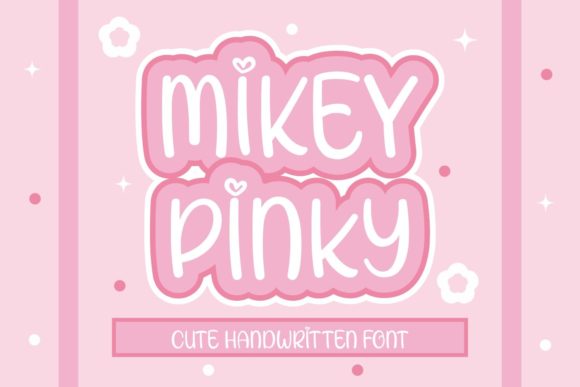
Introducing Mikey Pinky, the enchanting handwritten font that captures the essence of love and playfulness in every stroke. Specifically designed to cater to your heartfelt creations, Mikey Pinky is the perfect choice for crafting designs that evoke warmth and affection.
With its charming and whimsical personality, Mikey Pinky is the ideal font for bringing a touch of joy and lightheartedness to your designs. Its smooth curves and playful strokes will add a captivating touch to your projects, whether you're designing invitations, greeting cards, or any creation that calls for a sprinkle of happiness.
Indulge in the magic of Mikey Pinky and let its heartfelt spirit elevate your creations. Let your designs blossom with the charm and delight that only this captivating font can bring. Make Mikey Pinky the font of choice for your most cherished projects and spread love through the power of heartfelt typography.
Mikey Pinky is not just a font; it's an invitation to express your emotions with style and creativity. Whether you're creating designs for personal or professional projects, Mikey Pinky will add a touch of whimsy and magic to every stroke. So, embrace the playful spirit of Mikey Pinky and let your designs dance with love and charm!
Created with meticulous attention to detail, Mikey Pinky is a testament to the artistry and passion of its creator, Rifki (7ntypes). Its unique character and charming personality make it a standout choice among handwritten fonts. Step into the world of Mikey Pinky and discover the endless possibilities for creating designs that capture the essence of love and happiness.